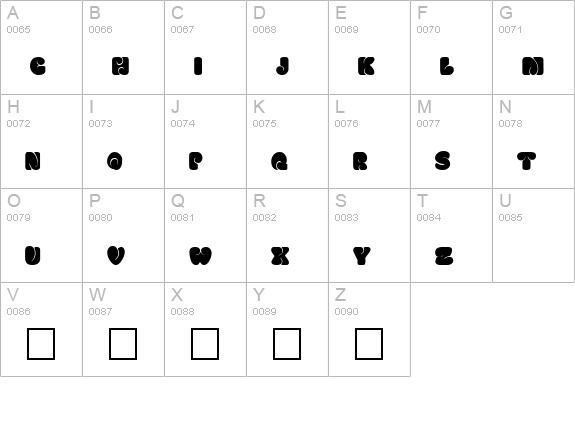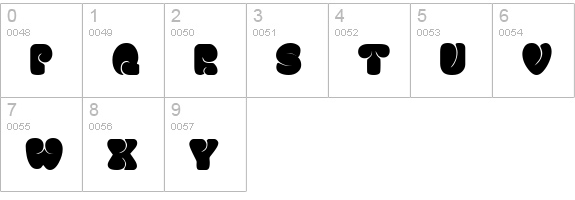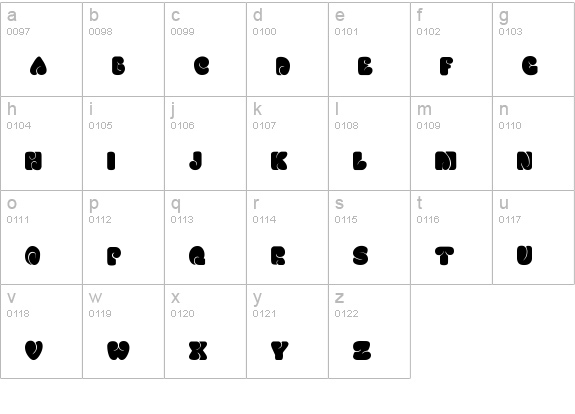
FATSOcaps Font Details
FATSOcaps is a striking and bold display font that exudes a sense of strength and confidence. With its thick strokes and exaggerated curves, this font commands attention and makes a statement. Perfect for headlines, logos, and branding projects, FATSOcaps is sure to leave a lasting impression. The best part? FATSOcaps is available for free download at FontsMarket.com. Now you can add this unique and eye-catching font to your design arsenal without breaking the bank. Don't miss out on the opportunity to elevate your projects with the impactful style of FATSOcaps - download it today and let your creativity shine!